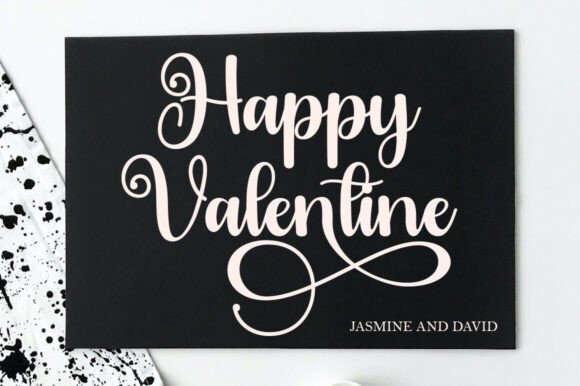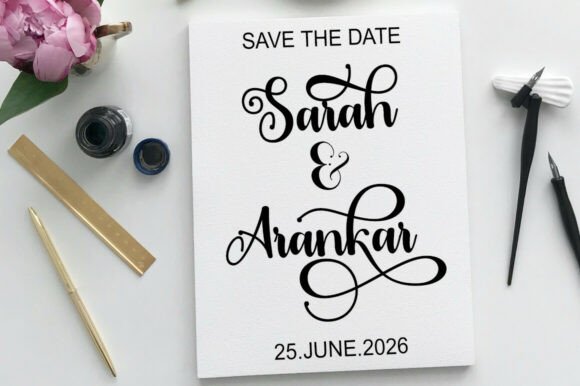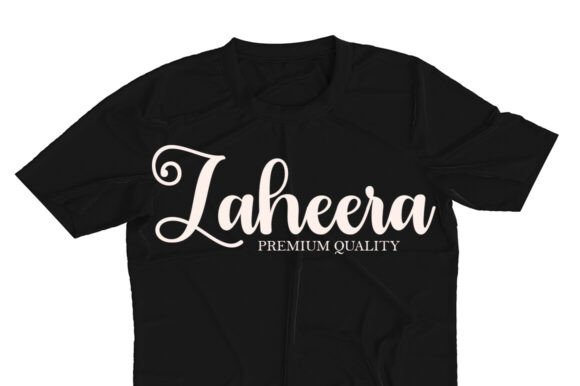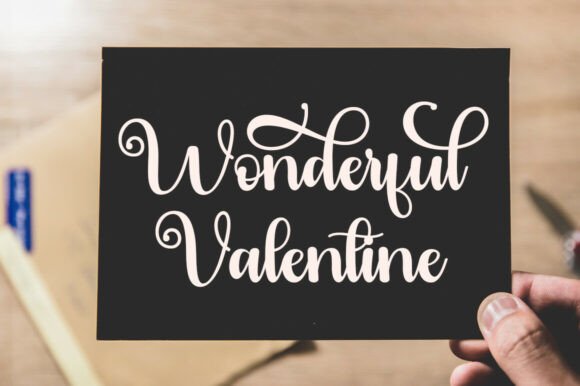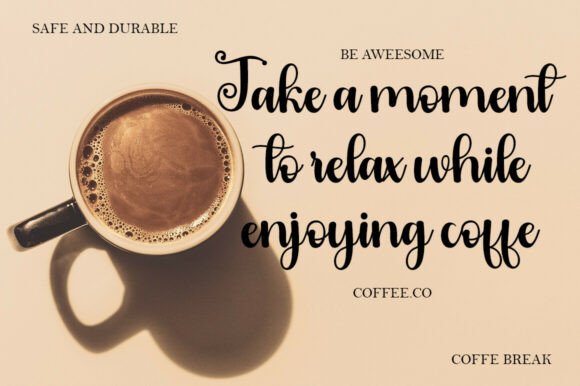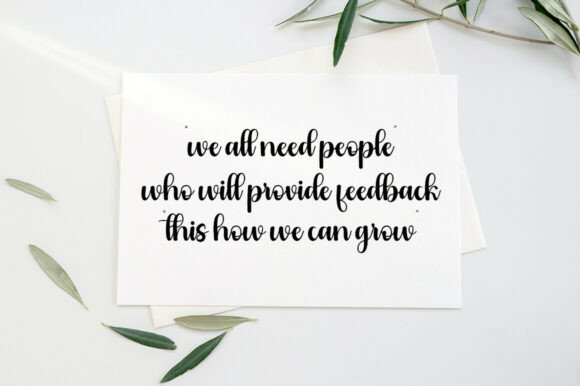
Enchanted Wonderful: An Elegant Script Font
Step into a world of timeless beauty with Enchanted Wonderful, a breathtaking “Elegant Script Font” that dances across the page with unparalleled grace. This typeface is a celebration of classic calligraphy, featuring long, sweeping swashes and intricate flourishes that make every word feel like a work of art.
The Essence of Elegance
The Enchanted Wonderful font is designed for moments that matter, bringing a sense of “enchantment” and artisanal craftsmanship to your most delicate projects. Its fluid, rhythmic strokes provide a natural, hand-like quality that is perfect for creating sophisticated and elegant designs. Whether you’re a designer, craftsperson, or simply someone who appreciates the beauty of fine typography, Enchanted Wonderful is sure to captivate and inspire.
Perfect for Wedding Stationery and Luxury Branding
The Enchanted Wonderful typeface is the crown jewel of wedding stationery and luxury branding. It is the ideal font for romantic invitations, elegant place cards, and bespoke “thank you” notes that leave a lasting impression. The font’s elegant and refined appearance makes it perfect for high-end wedding designs, including:
• Wedding invitations and save-the-date cards
• Place cards and table runners
• Menu cards and beverage labels
• Personalized thank-you notes and stationery
Beyond the Bridal World
Beyond the bridal world, the Enchanted Wonderful font shines in the beauty and lifestyle sectors—use it to create sophisticated logos for:
• Skincare lines and beauty products
• Fine jewelry packaging and labels
• Boutique bakery menus and branding
• Luxury lifestyle brands and product packaging
Key Features of Enchanted Wonderful
The Enchanted Wonderful font features:
• Long, sweeping swashes and intricate flourishes
• Fluid, rhythmic strokes for a natural, hand-like quality
• Elegant and refined appearance perfect for high-end designs
• Support for multiple languages and characters
• Easy to use and customize for your unique projects
Why Choose Enchanted Wonderful?
There are many reasons why Enchanted Wonderful stands out as a top choice for designers and crafters:
• Unique and elegant design that sets your projects apart
• High-quality and versatile font suitable for a wide range of applications
• Easy to use and customize for your unique needs
Tips for Using Enchanted Wonderful
To get the most out of Enchanted Wonderful, consider the following tips:
• Use it sparingly: Enchanted Wonderful is a statement font, so use it sparingly to make a big impact.
• Pair it with contrasting fonts: Pair Enchanted Wonderful with simpler fonts to create visual interest and contrast.
• Experiment with colors: Try pairing Enchanted Wonderful with a range of colors to find the perfect combination for your project.
Enchanted Wonderful is a truly special font that brings a touch of elegance and sophistication to any project. Its unique design, versatility, and high-quality craftsmanship make it a top choice for designers and crafters. Whether you’re creating wedding stationery, luxury branding, or simply looking for a beautiful font to add some magic to your designs, Enchanted Wonderful is sure to delight.